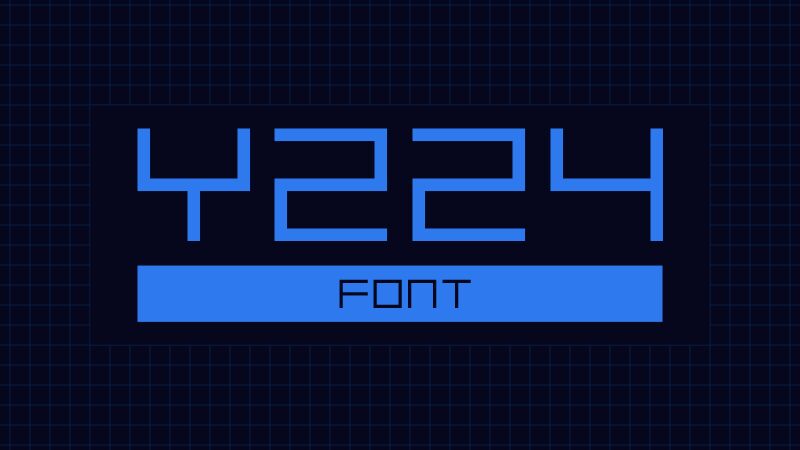
Y224
Y224 font by GGBotNet is a light weight techno display font with an expanded style. This minimalist geometric typeface offers a digital aesthetic with structured letterforms and a futuristic vibe. Its modern look is achieved through perfect symmetry and clean lines built to impress any audience.